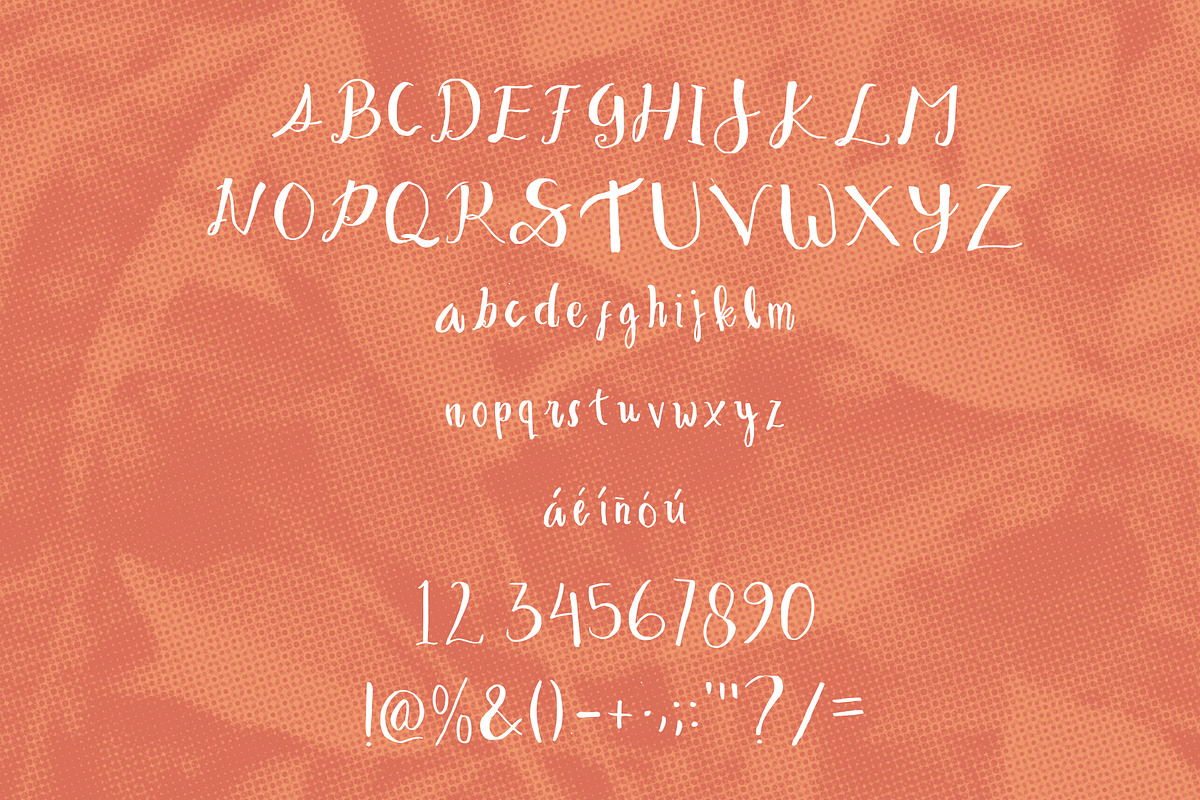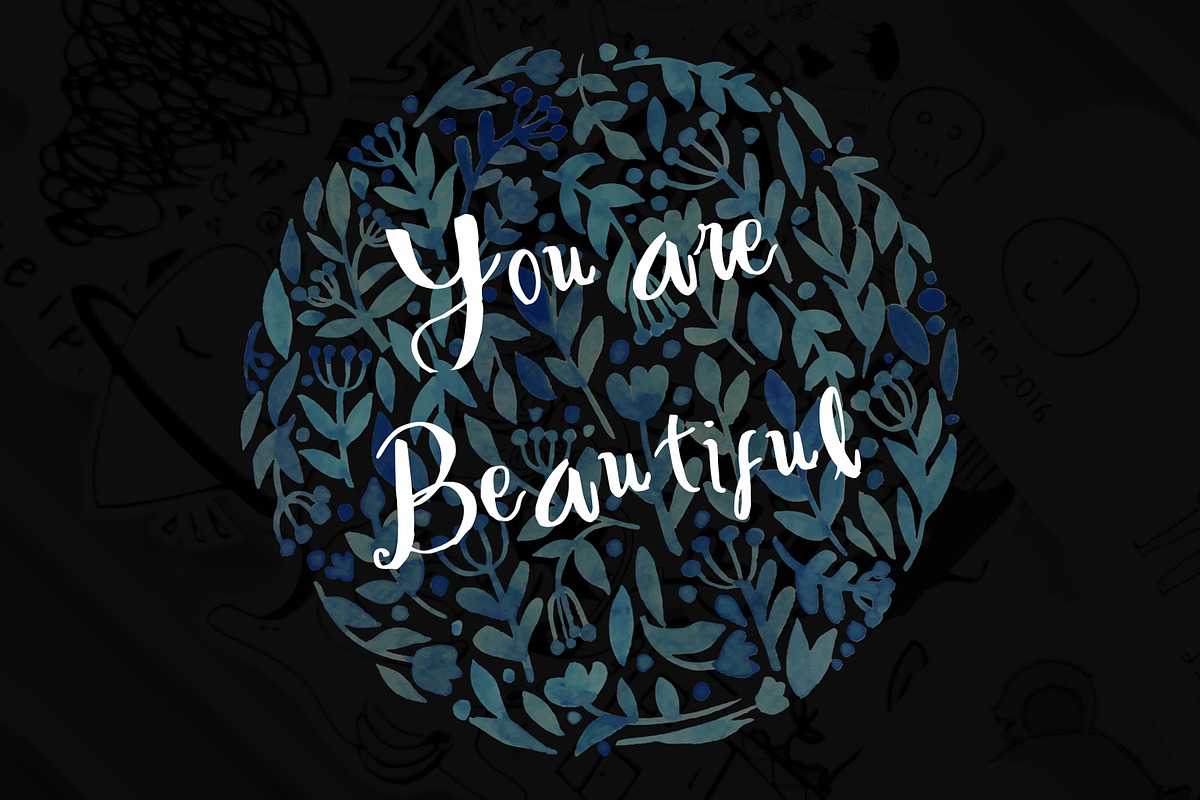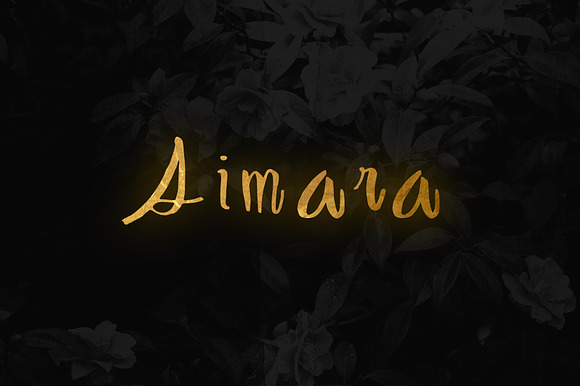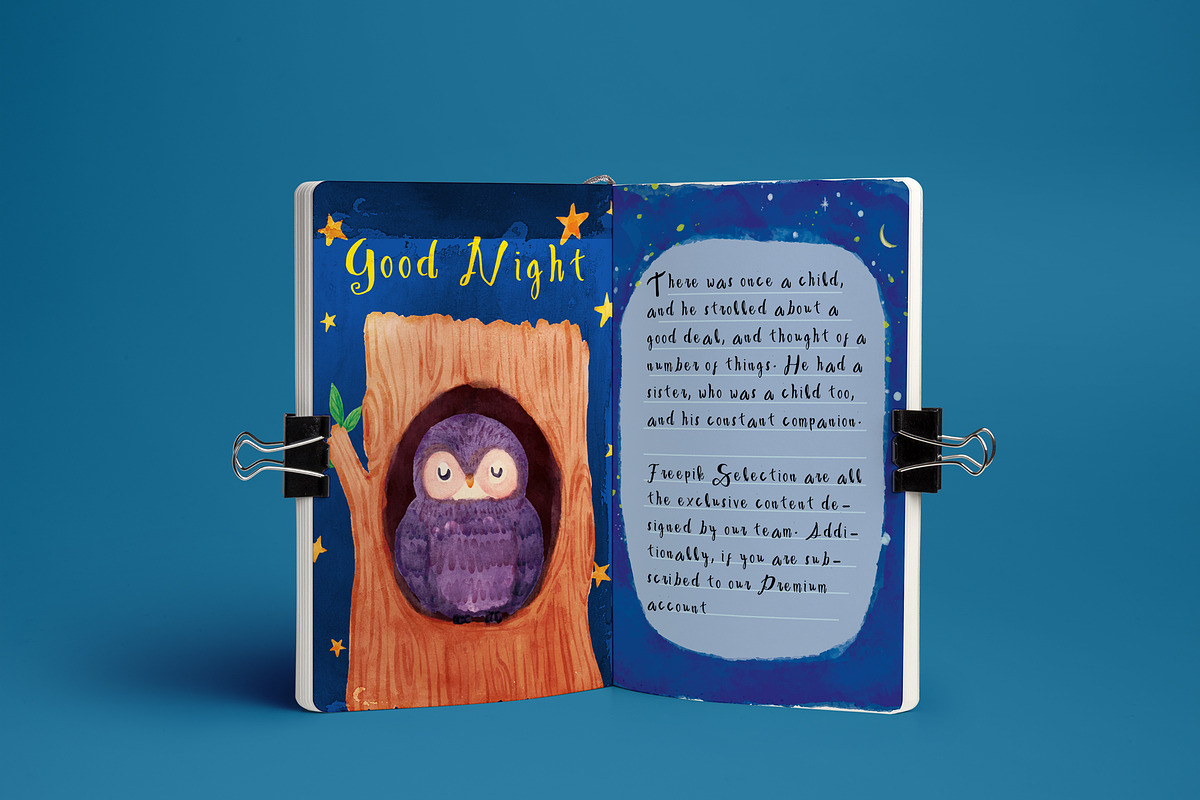
Aimara Font Boutique Hand-drawn
Script hand-drawn display font called Aimara was designed for boutique style also fit for Kids story and book.
Aimara Font Boutique Hand-drawn by NadaNora fits naturally into Branding, posters, packaging, typography.